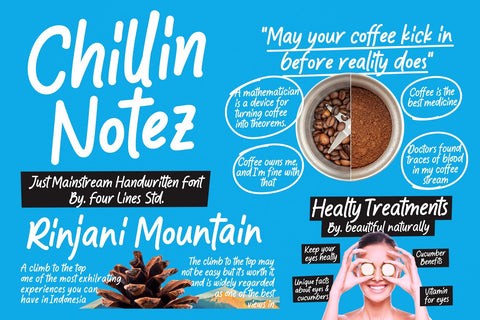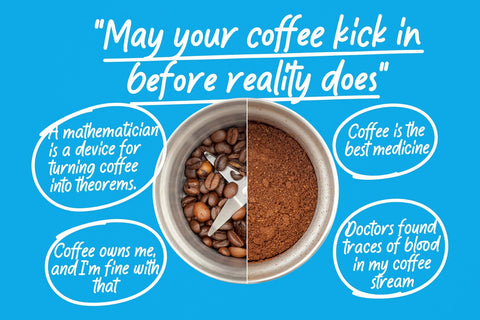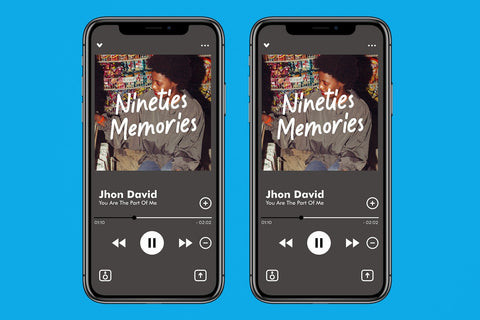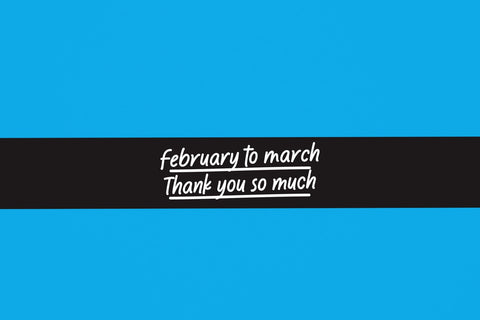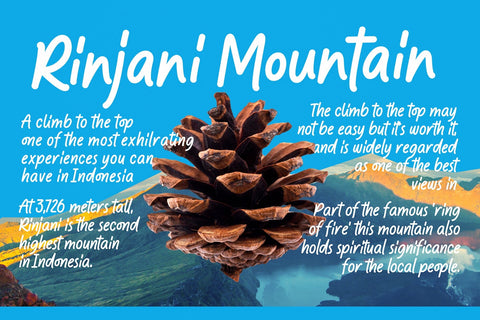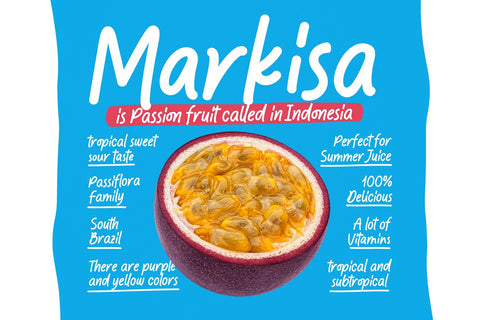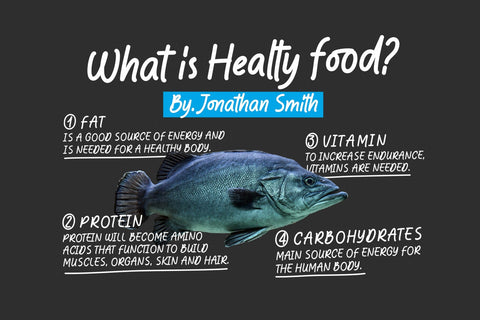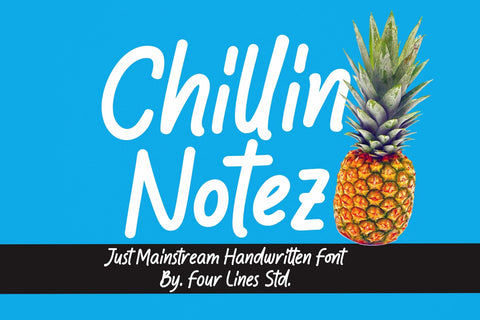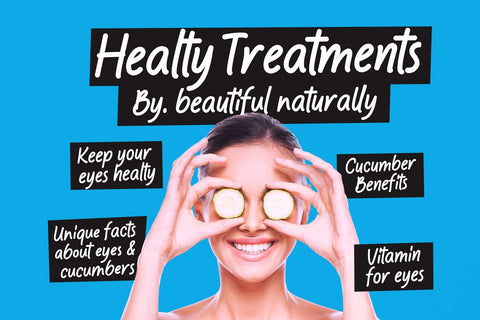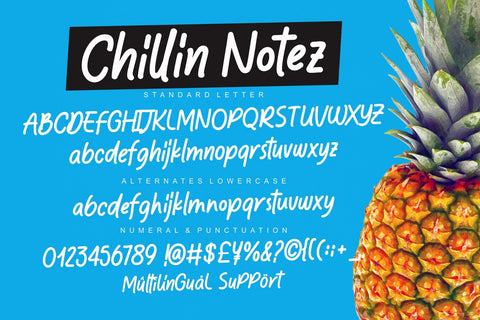
Chillin Notez - Casual Handwritten Font
With its flowing lines and cool, contemporary vibe, Chillin Notez adds an air of refinement to any project. Whether you're crafting captivating advertisements, designing eye-catching poster, or creating stunning social media graphics, this font is your ultimate companion for conveying a message that resonates.